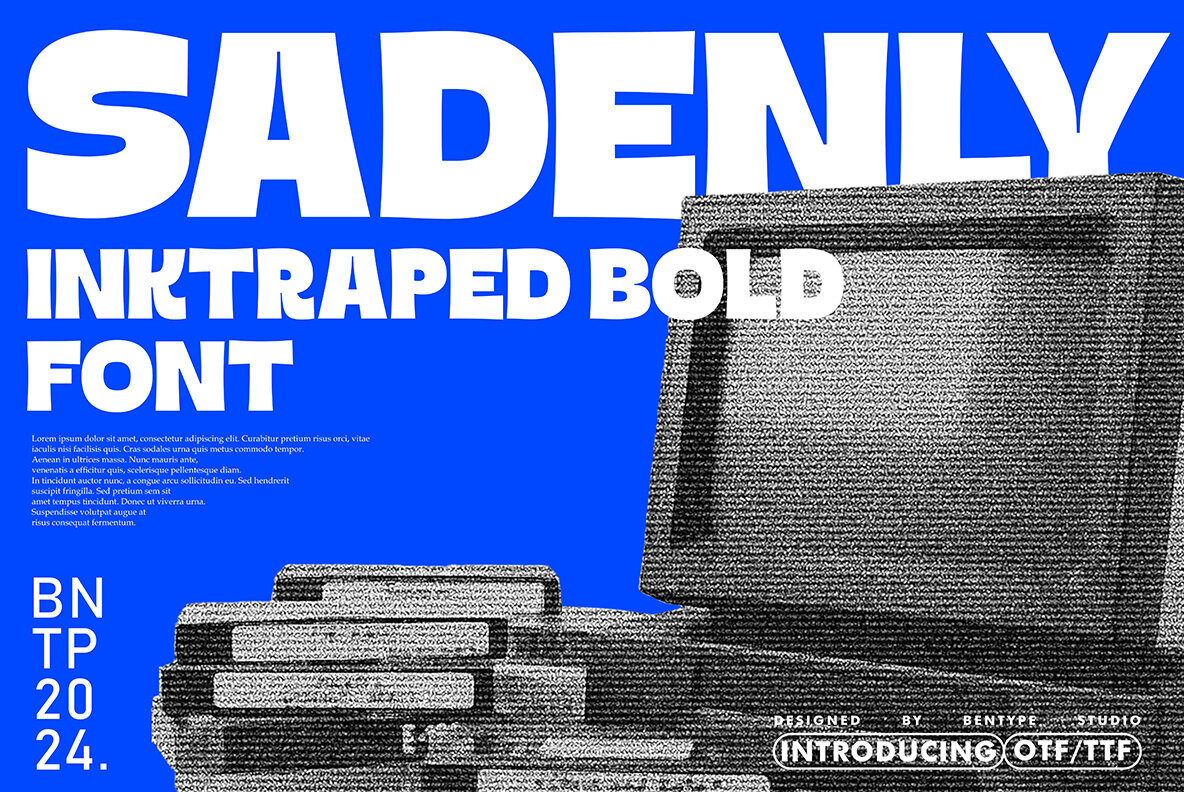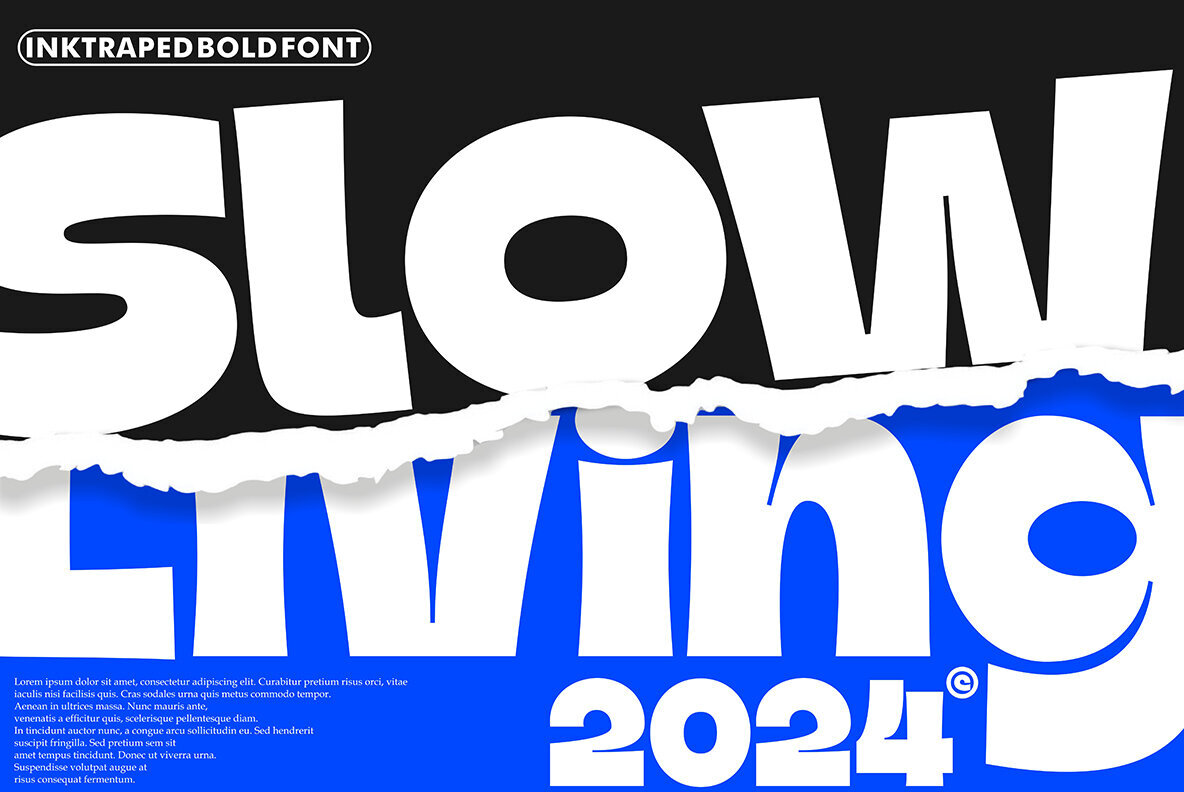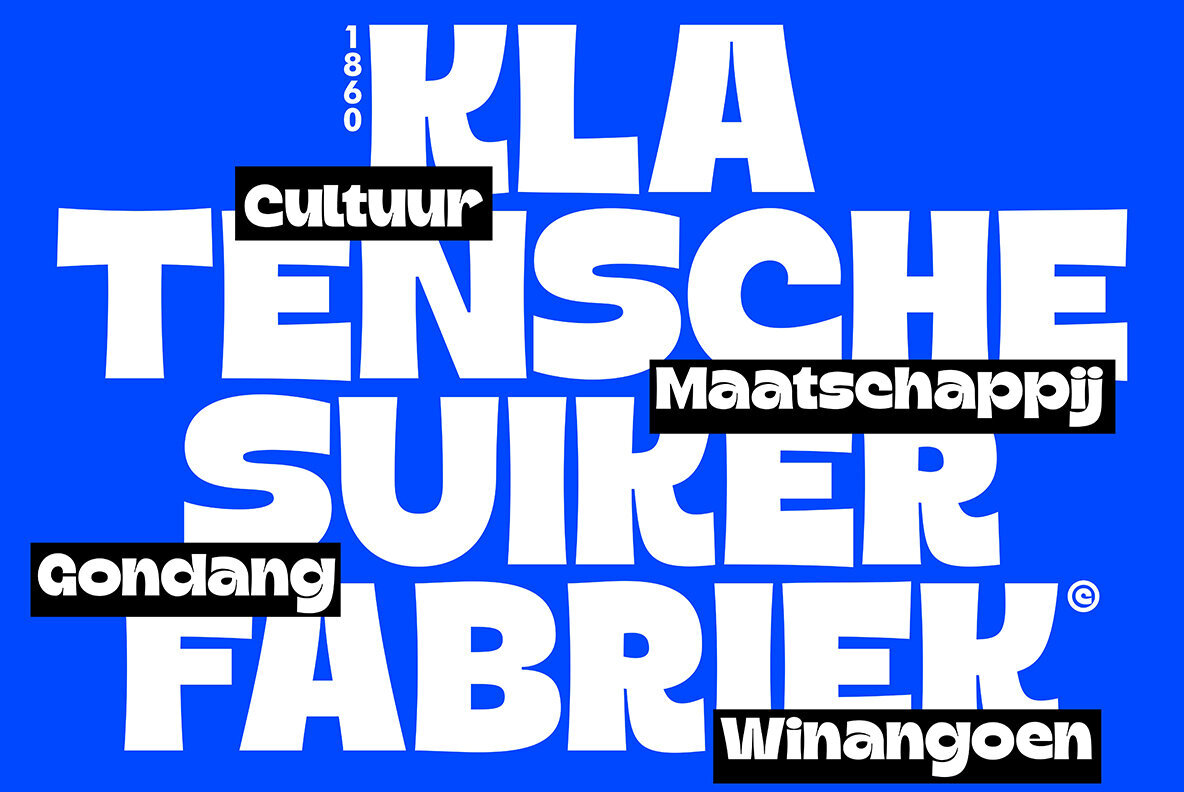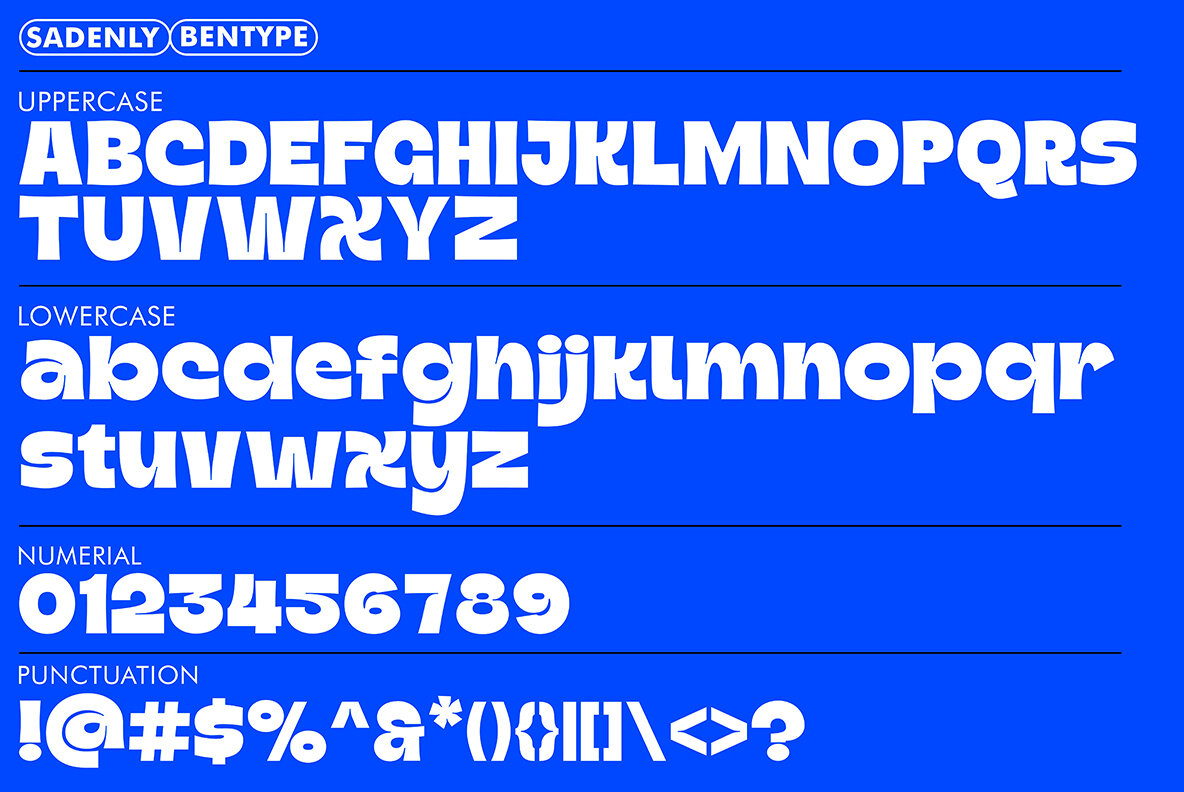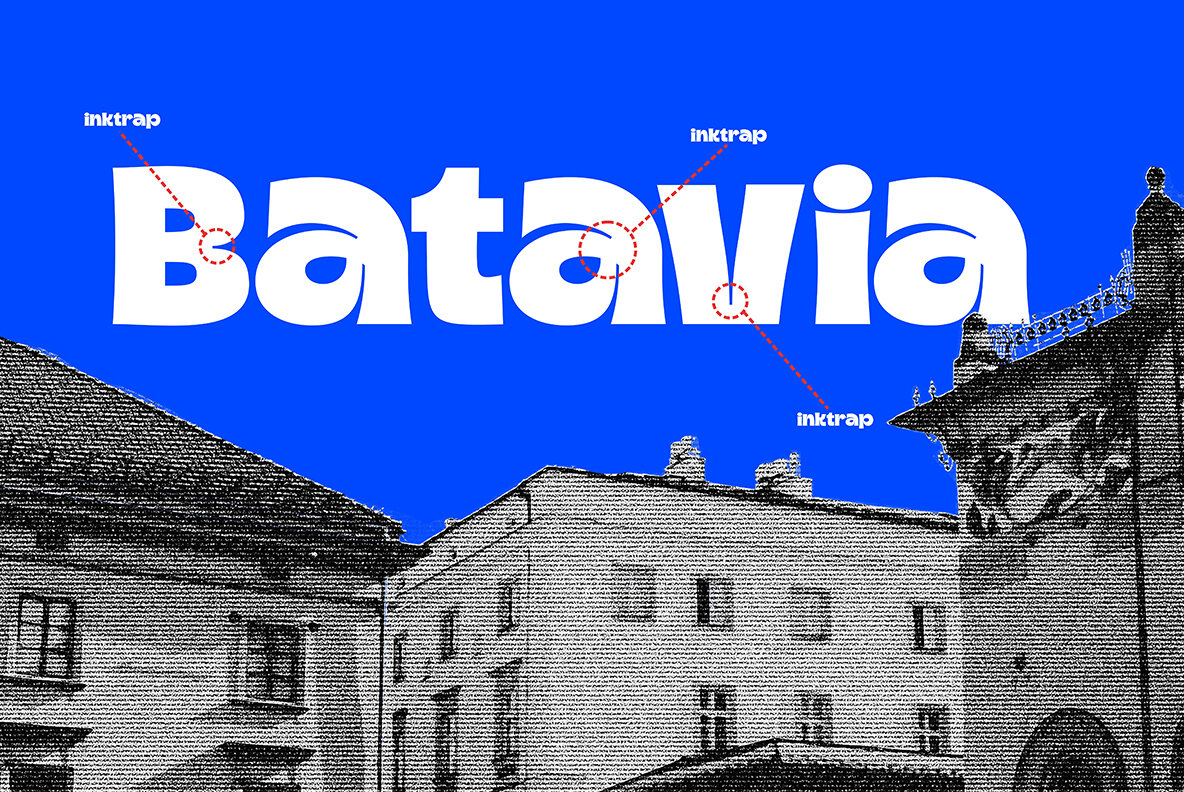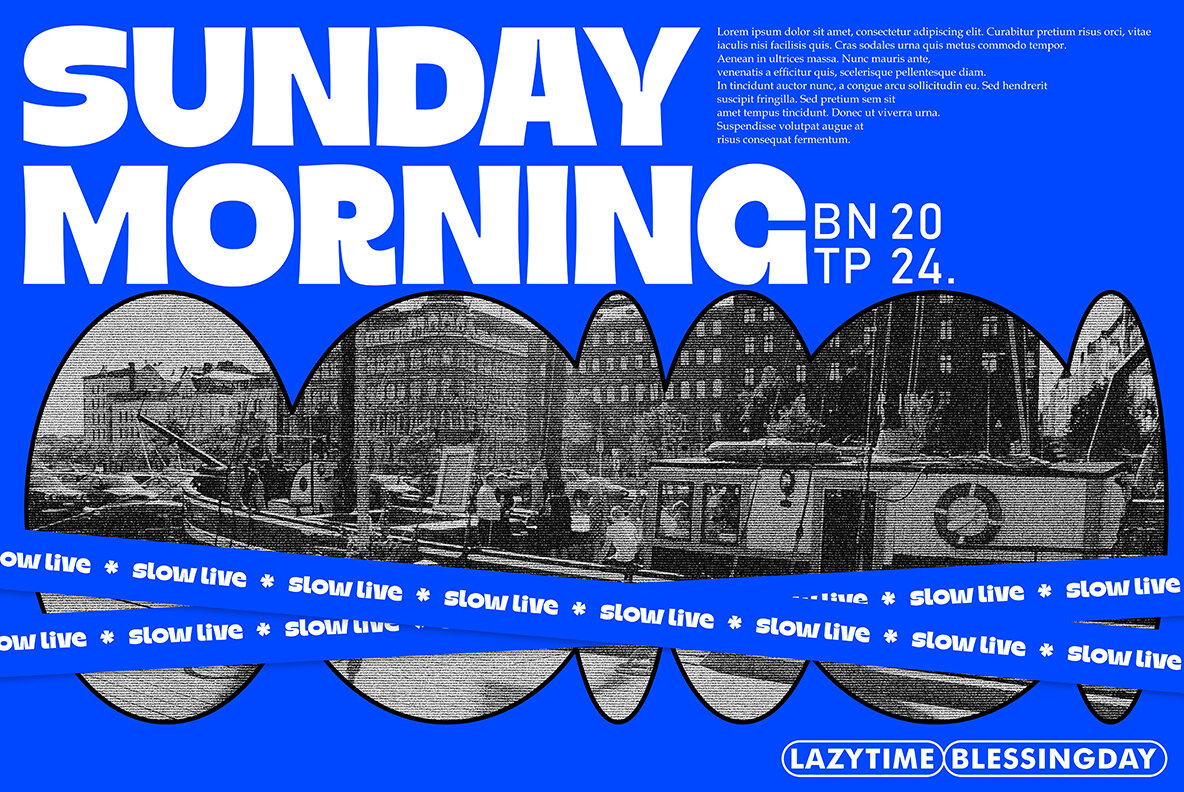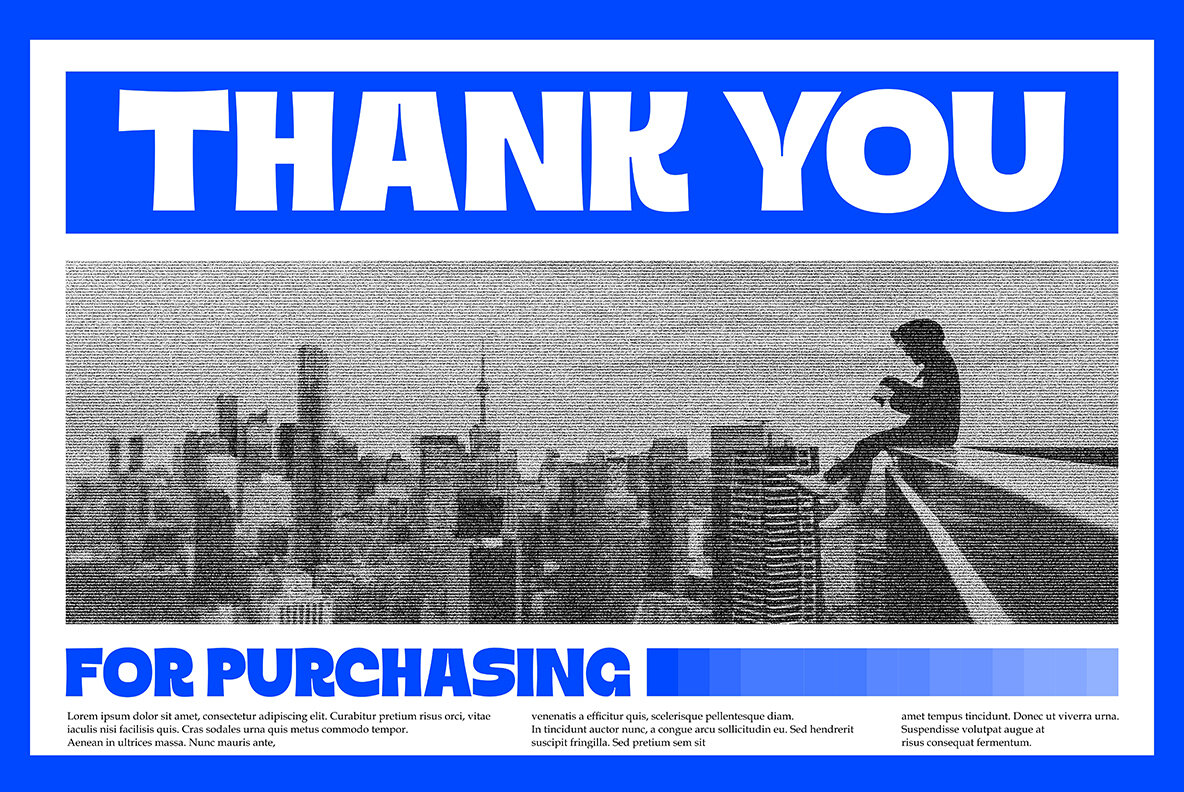
Sadenly Font
Sadenly
Sadenly Bold captures the essence of brutalist design with its striking sans display style, effortlessly integrating unique stems and joins. Its bold aesthetics, despite character set limitations, evoke a nostalgic charm that continues to enchant designers seeking impactful visual appeal. Perfect for displays, headlines, and banners, this font brings an edge to any design project.Sadenly Bold Font